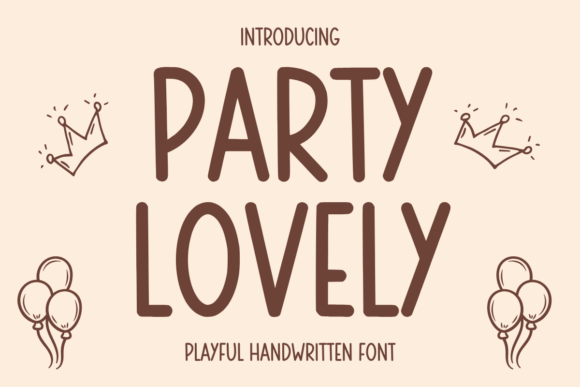
Introducing Party Lovely Font: Elevate Your Designs with a Touch of Elegance
In the world of digital design, fonts play a crucial role in conveying the tone and personality of a brand or product. When it comes to creating visually appealing and engaging content, the right font can make all the difference. This is where Party Lovely Font comes in – a delightfully charming handwritten font that exudes natural originality and authenticity. In this article, we’ll explore the features and benefits of Party Lovely Font and how it can elevate your designs, particularly for KDP interiors, planners, journals, diaries, and printables.
What is Party Lovely Font?
Party Lovely Font is a carefully crafted handwritten font designed to bring a touch of elegance and sophistication to your designs. Its unique and charming style makes it perfect for a wide range of applications, from KDP templates and stationery to invitations, greeting cards, and more.
- Handwritten with love: Party Lovely Font is a genuine handwritten font, created with precision and attention to detail to ensure a natural and authentic look.
- Perfectly crafted: The font is meticulously designed to provide a flawless reading experience, making it ideal for body text, headings, and titles.
- Elegant and versatile: Party Lovely Font is suitable for various design projects, from formal to informal, and can be used to create a wide range of materials, including planners, journals, diaries, and printables.
Transform Your KDP Interiors with Party Lovely Font
KDP (Kindle Direct Publishing) has made it easier for authors and creators to self-publish their work. With Party Lovely Font, you can take your KDP interiors to the next level by adding a touch of elegance and sophistication. Here are some ways you can use Party Lovely Font to enhance your KDP templates:
- Weekly planners: Create beautifully designed weekly planners that help users stay organized and focused.
- Daily planners: Design daily planners that provide a structured format for users to plan their day, complete with space for notes and to-do lists.
- Journals and diaries: Create stunning journals and diaries that inspire users to reflect, write, and express themselves.
- To-do lists and organizers: Develop to-do lists and organizers that help users prioritize tasks and stay on top of their work.
Elevate Your Stationery and Printables with Party Lovely Font
Party Lovely Font is not just limited to KDP interiors; it’s also perfect for creating stunning stationery and printables. Here are some ideas to get you started:
- Invitations and greeting cards: Design beautiful invitations and greeting cards for special occasions, such as birthdays, weddings, and holidays.
- Events and banners: Create eye-catching events and banners that showcase your brand or message.
- Gift boxes and tags: Add a personal touch to gift boxes and tags with Party Lovely Font.
- Cricut crafts and silhouettes: Use Party Lovely Font to create intricate Cricut crafts and silhouettes that make perfect decorations or gifts.
Unleash Your Creativity with Party Lovely Font
Party Lovely Font is a versatile font that can be used for a wide range of creative projects. Here are some ideas to inspire you:
- Spiral notebooks and monthly planners: Design stunning spiral notebooks and monthly planners that help users stay organized and focused.
- Notebook papers and journals: Create beautifully designed notebook papers and journals that inspire users to write and reflect.
- Presentations and documents: Use Party Lovely Font to add a touch of elegance to your presentations and documents.
Tips and Tricks for Using Party Lovely Font
Here are some tips and tricks to help you get the most out of Party Lovely Font:
- Experiment with font sizes and styles: Try out different font sizes and styles to create visual interest and hierarchy in your designs.
- Pair with other fonts: Combine Party Lovely Font with other fonts to create a unique and harmonious look.
- Use in combination with images and graphics: Add images and graphics to your designs to create a visually appealing and engaging layout.
In conclusion, Party Lovely Font is a charming and elegant handwritten font that can elevate your designs and add a touch of sophistication. With its natural originality and versatility, it’s perfect for a wide range of applications, from KDP interiors and stationery to creative projects and printables. Whether you’re a designer, entrepreneur, or simply a creative enthusiast, Party Lovely Font is a great addition to your font library.